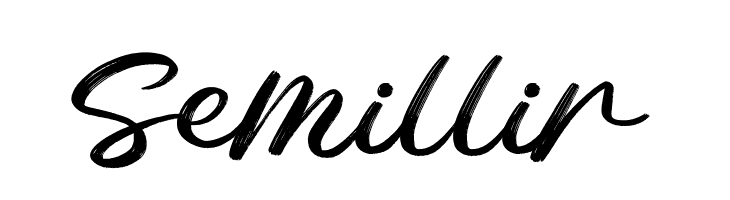
A fluid, cursive script font with elegant, connected letters.
A fluid and elegant script font with a personal, handwritten style.
A festive, cursive script font with elegant, flowing strokes.
A dynamic, flowing script font with elegant, cursive letterforms.
A playful and elegant handwritten font with smooth, flowing lines.
A bold, brush-style font with a lively and informal appearance.
A playful and elegant handwritten script font.